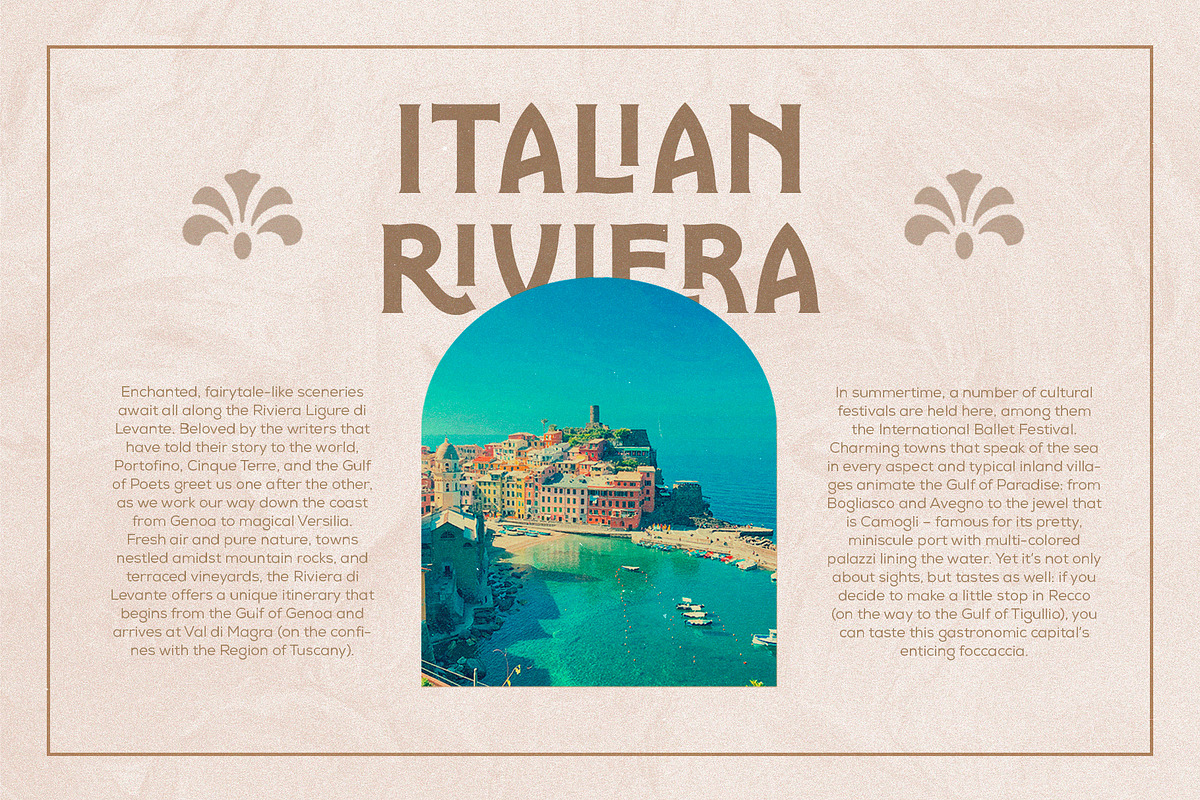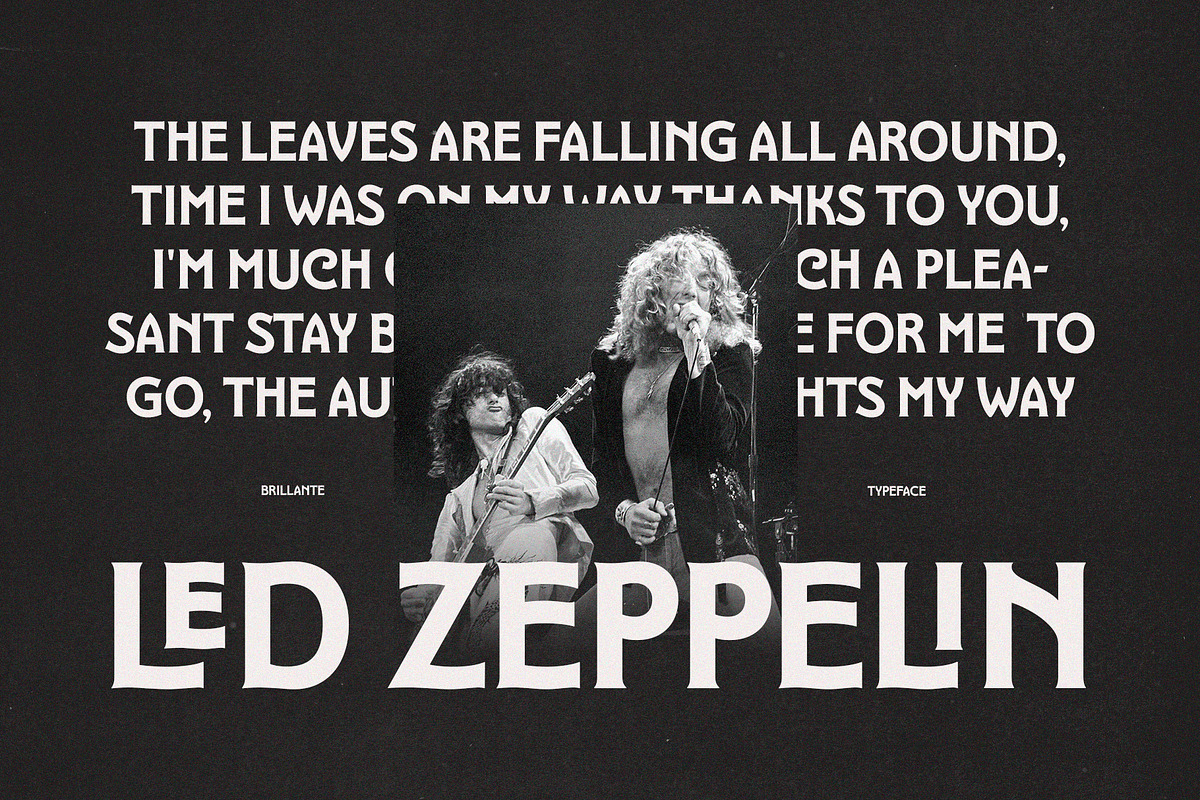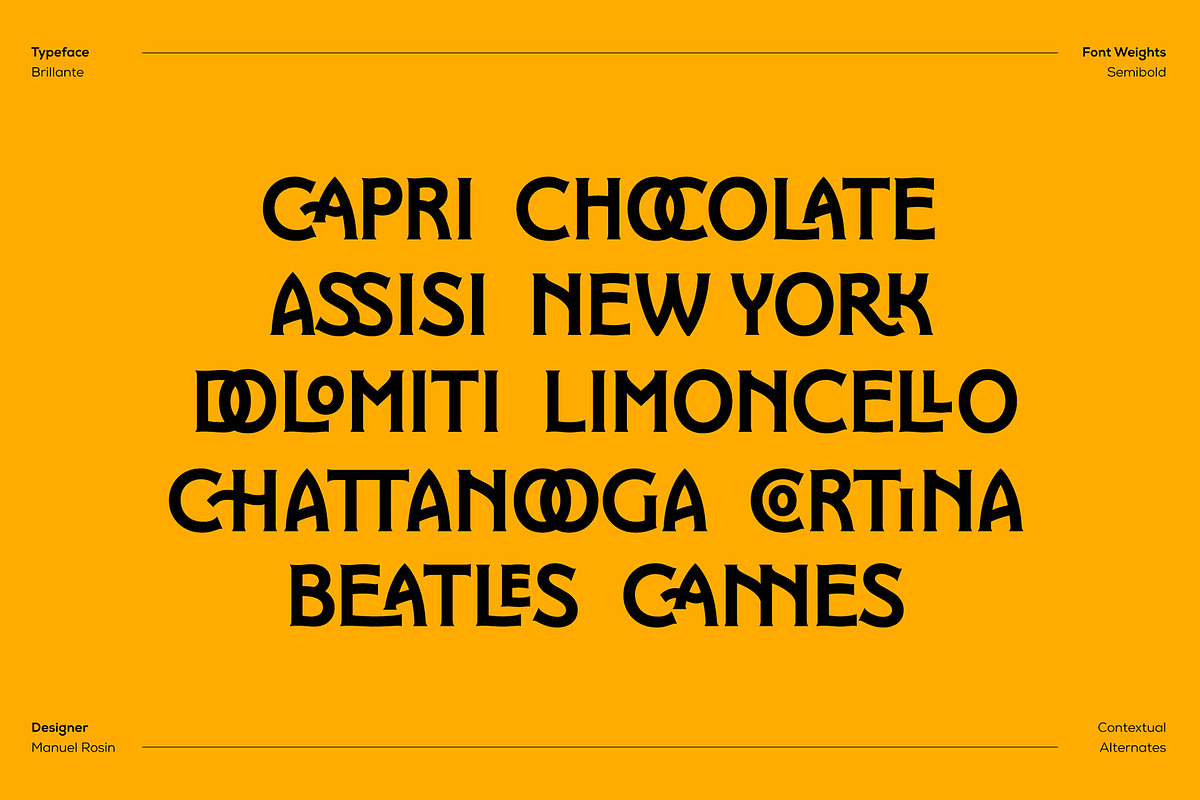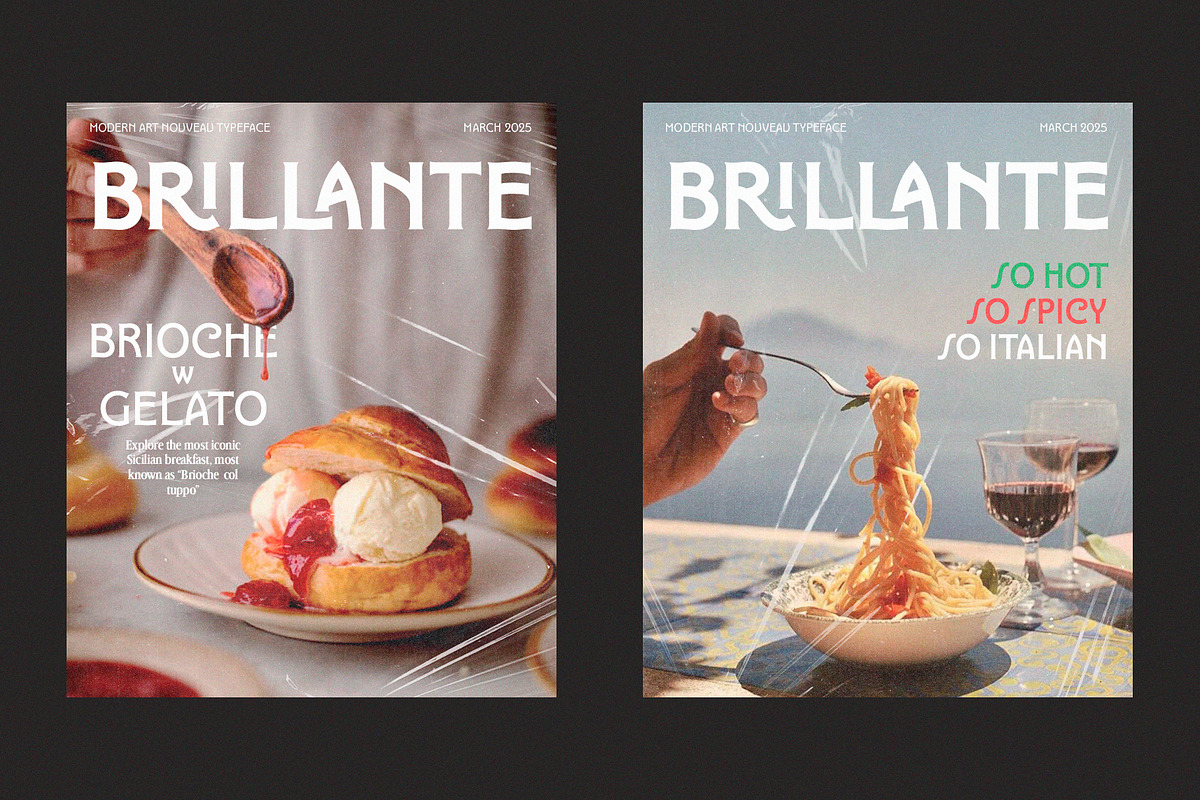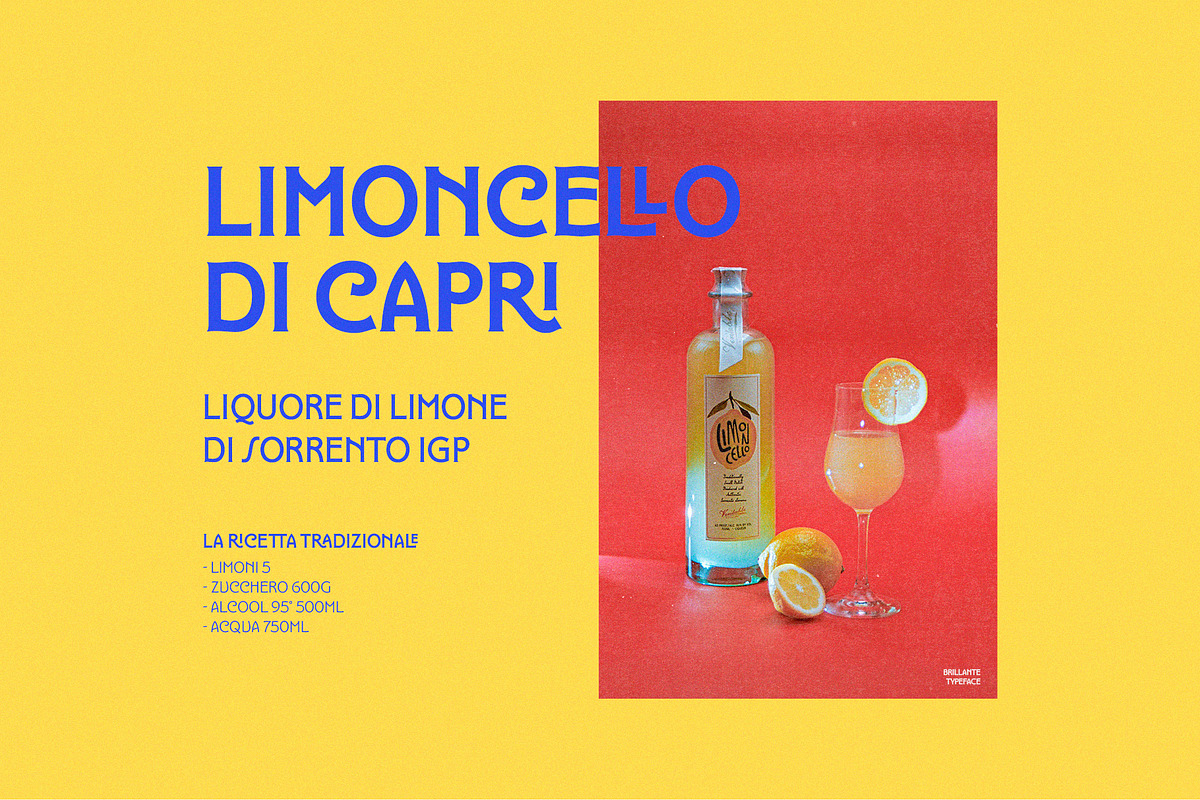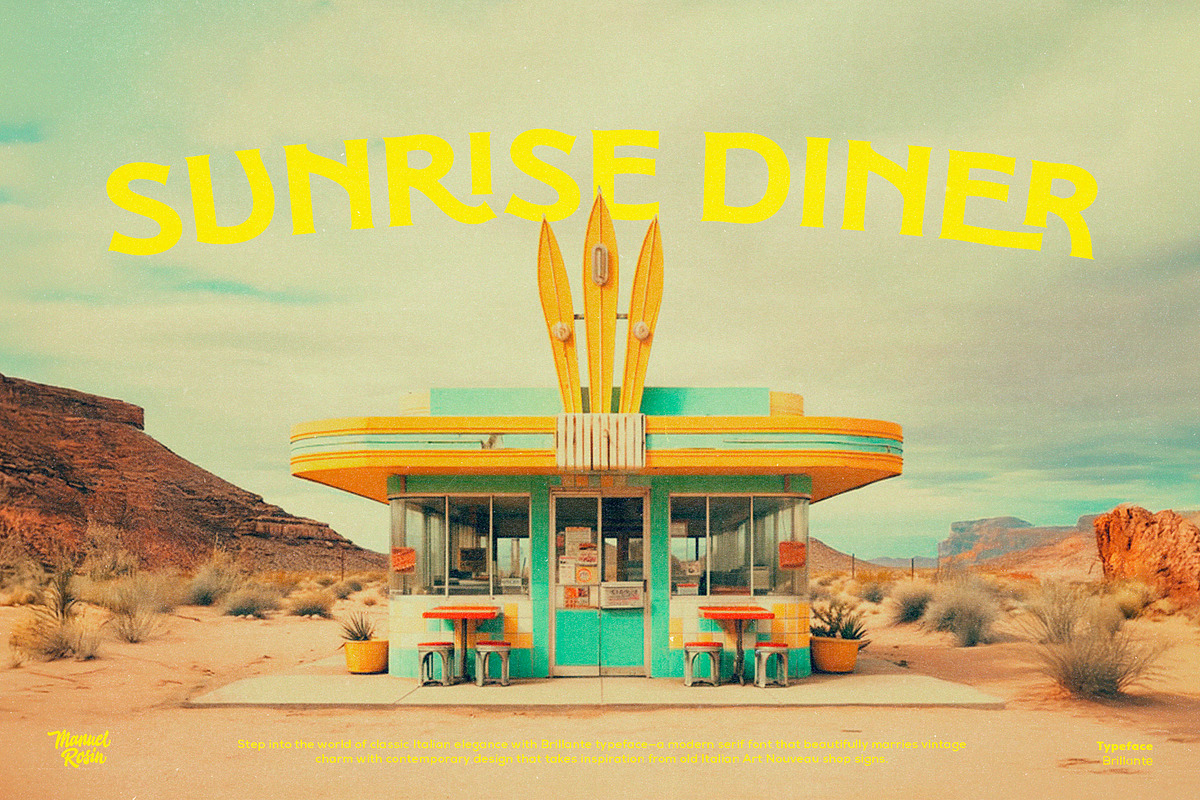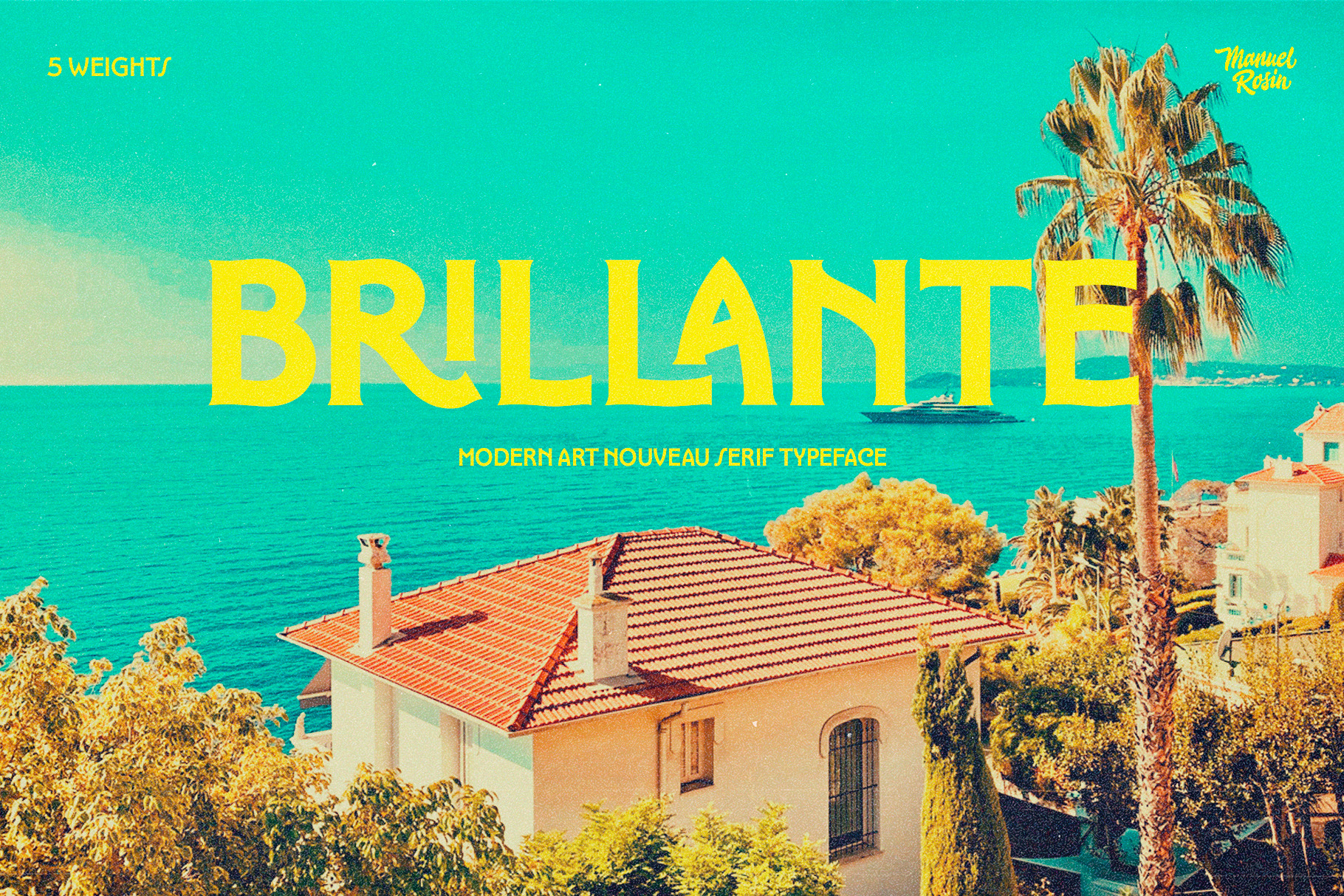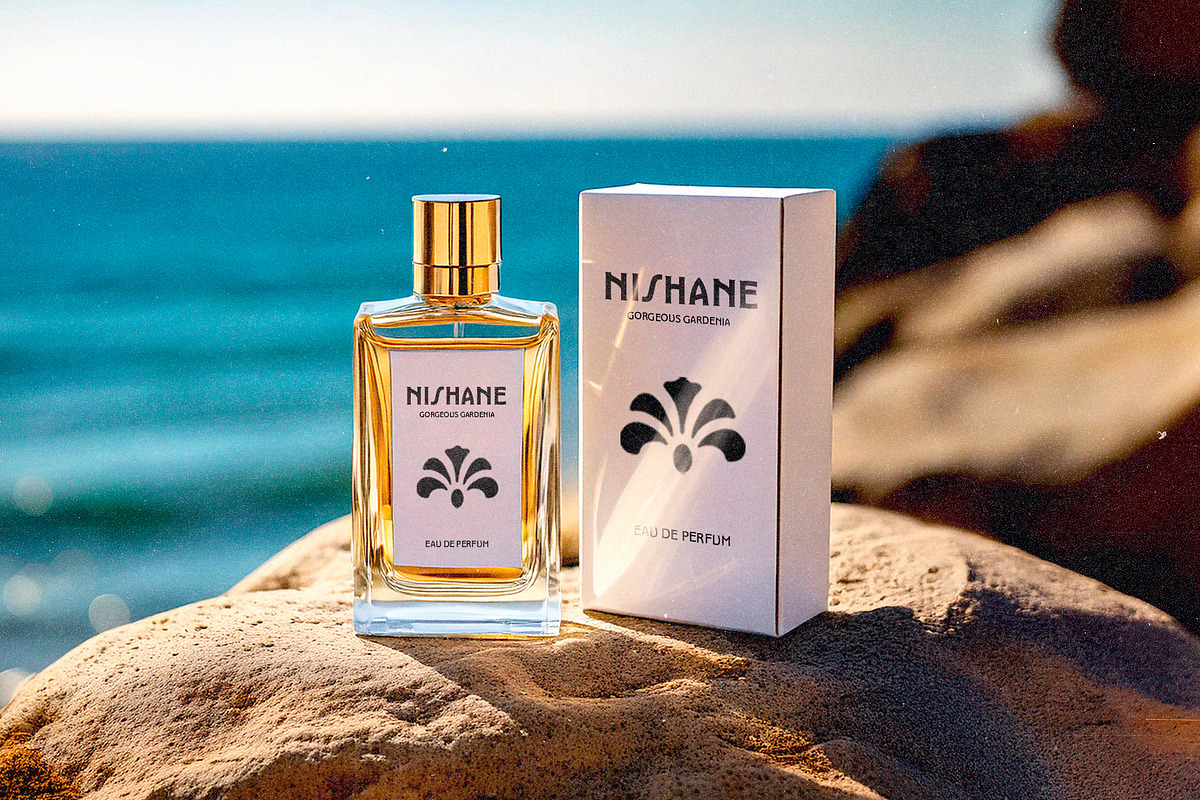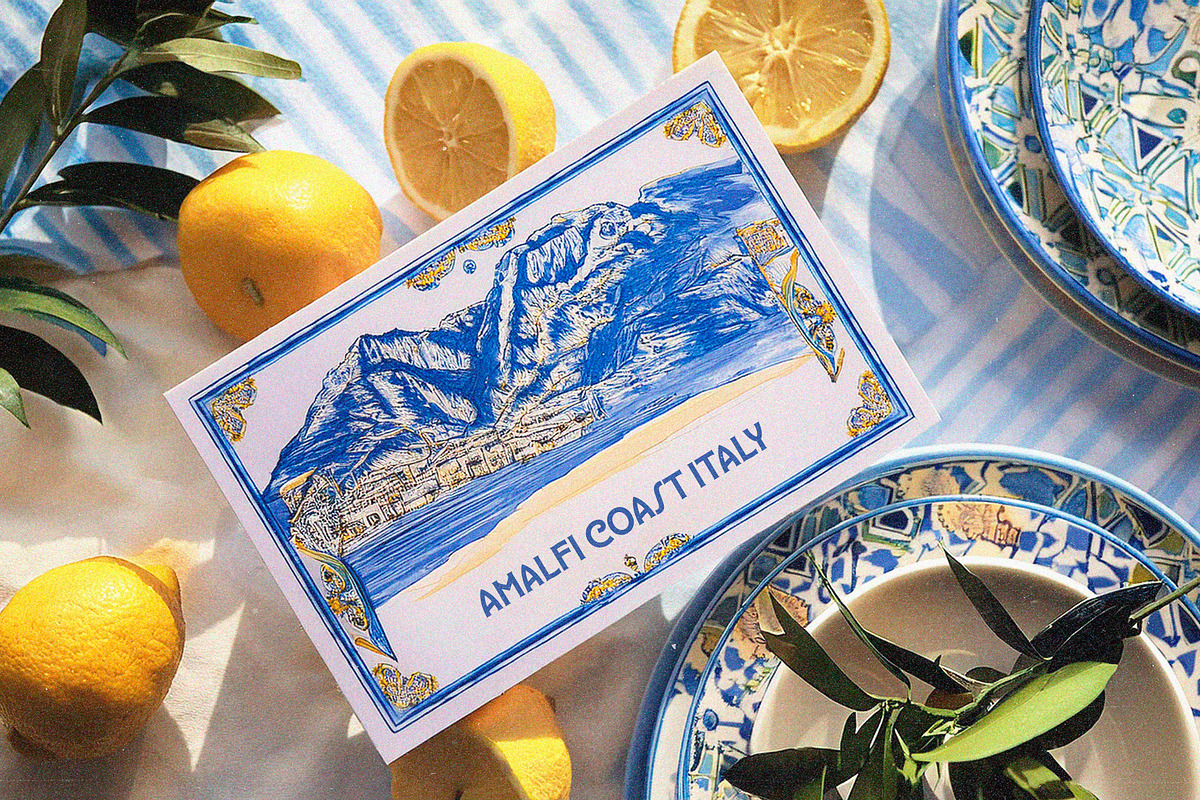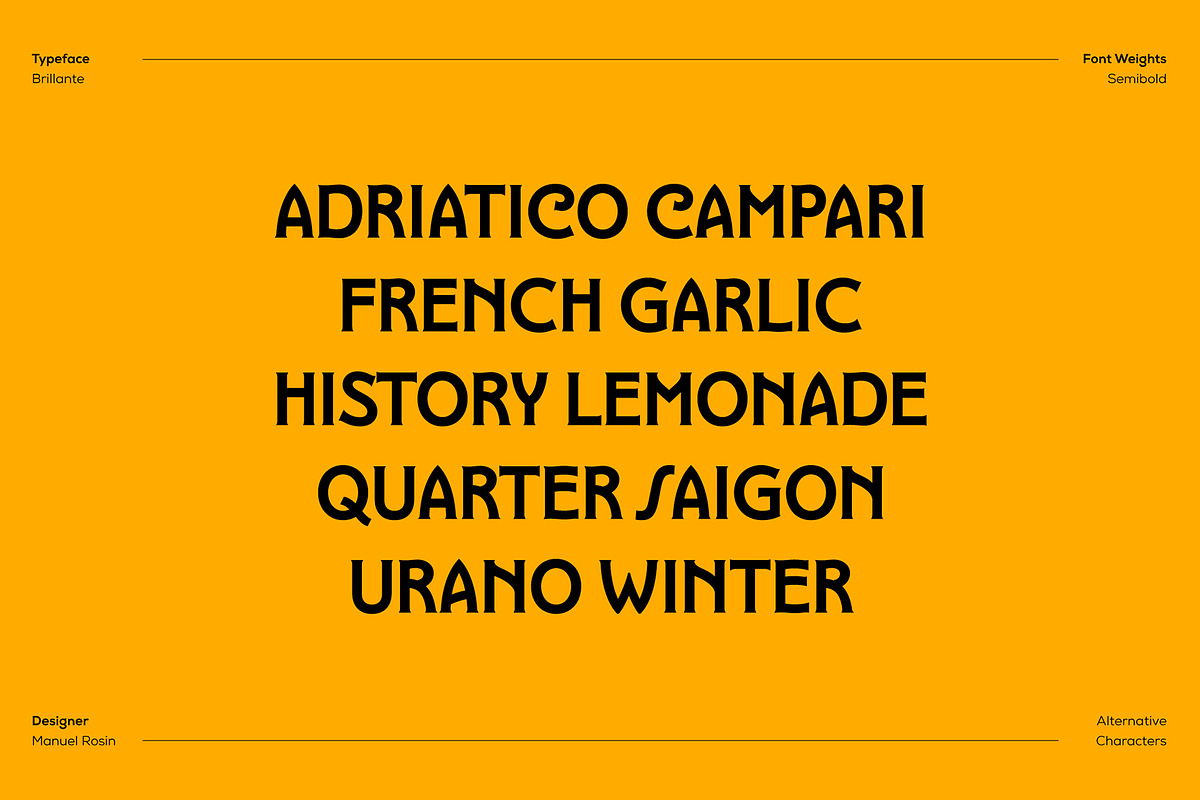
Brillante Typeface
Step into the world of classic Italian elegance with Brillante Typeface—a modern serif font that beautifully marries vintage charm with contemporary design. It is a modern serif font that takes inspiration from old Italian Art Nouveau shop signs. Its letterforms feature a delightful blend of vintage aesthetics and modern functionality. The thin horizontal serifs and vertical letters give it a timeless appeal, while the generous x-height ensures readability, making it ideal for both print and digital use.
Brillante comes in 5 weights (Thin, Regular, Medium, SemiBold and Bold) and includes lots of OpenType features:
- Explore a wide selection of ligatures
- Contextual alternates
- Fractions
- Stylistic sets
and much more!
Multilingual support is at the heart of Brillante, with an impressive range of diacritics that allow you to communicate in over 240 languages. Perfect for headings, logotypes, labels, and more, it is your go-to font for projects that require a blend of modern sophistication and vintage charm. Whether you’re crafting something beautiful or simply need a versatile serif font, Brillante will make your designs shine.